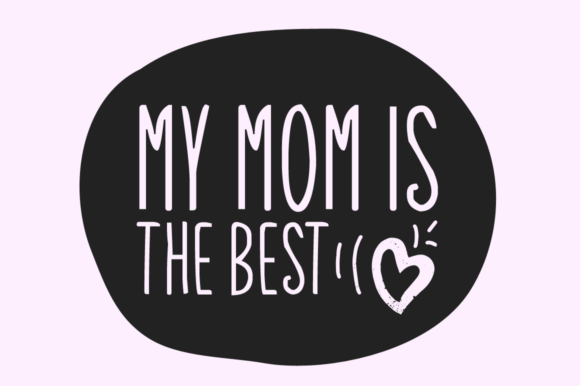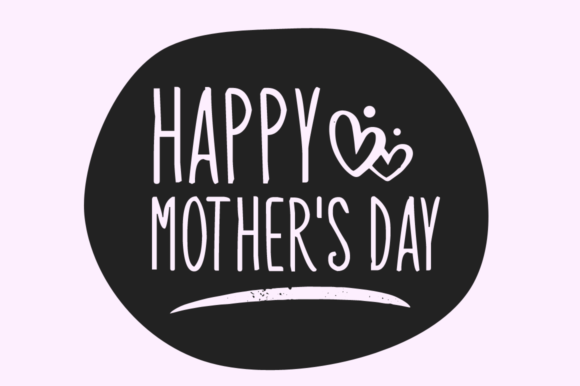
Introduction to Mother Special Font
Have you ever stared at a blank page, staring down at your creative project, trying to decide on the perfect font? For designers, this moment can be a daunting task. But what if you had the perfect font to elevate your design and make it truly stand out? Enter the Mother Special Font, a friendly and cute display font that’s sure to capture the hearts of anyone who lays eyes on it.
This versatile font is perfect for designers who want to add a touch of whimsy and personality to their creative projects. With a wide range of contexts in which it can be used, from social media graphics to advertising campaigns, the Mother Special Font is a valuable design resource that’s sure to become a go-to choice for many.
Key Features of Mother Special Font
- Unique, hand-drawn design perfect for creative projects and personal expression.
- Perfect for adding a personal touch to creative projects, from greeting cards to digital art.
Honest Review: Mother Special Font
I recently stumbled upon the Mother Special Font while searching for a free download to enhance my creative project. The first thing I noticed was the high quality of the font, it’s clear that the designer put in a lot of effort to create a unique and stylish design resource.
The Mother Special Font has a lot of character and is perfect for any project that requires a touch of elegance. ✨ The font has a transparent background, making it easy to use on any design or creative project.
Here are some of the key features that I like about the Mother Special Font:
- High quality design
- Unique and stylish character
However, I do have a few limitations to mention:
- Limited character set
- Not suitable for large body text
- Not as versatile as some other fonts
⚠️ Despite these limitations, I would still highly recommend the Mother Special Font for any design or creative project that requires a touch of elegance. It’s a great addition to any design resource collection.
Overall, I’m very impressed with the Mother Special Font and I’m sure it will be a valuable asset to many designers and creatives out there.
Tips for Getting the Most Out of Mother Special Font
For the best results, use Mother Special Font on a transparent background to create a high-quality design. You can also experiment with different font sizes and colors to create a unique look. Consider combining Mother Special Font with other design resources, such as images or graphics, to create a visually appealing design.
Mother Special Font is a versatile design resource that can be used in a variety of creative projects, including invitations, greeting cards, and social media graphics. It’s also a great choice for free download and use in personal or commercial projects.